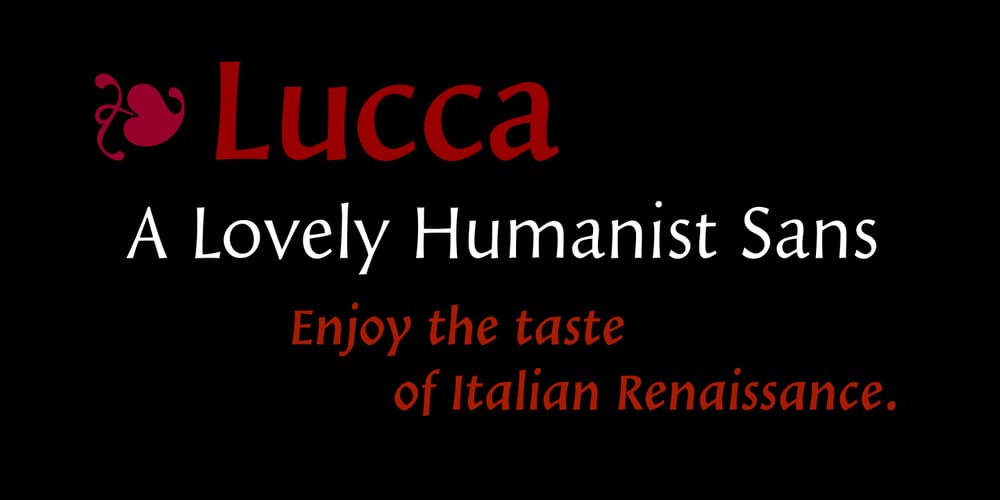
Lucca
Lucca font
Lucca Font Family was designed by published by João Henrique Lopes. Lucca contains 8 styles and family package options. Inspired by Italian Renaissance fonts like Poliphilus, Blado, Centaur and Arrighi, Lucca presents a simple charm and a powerful classic feel. It is cute, friendly, clear and superbly readable. Its low contrast provides Lucca a firm yet flexible substance, making it sensual and enticing. There’s a certain degree of abstraction in the precise endings, and the whole design was made to survive even in the harshest conditions, conserving its readability and beauty.